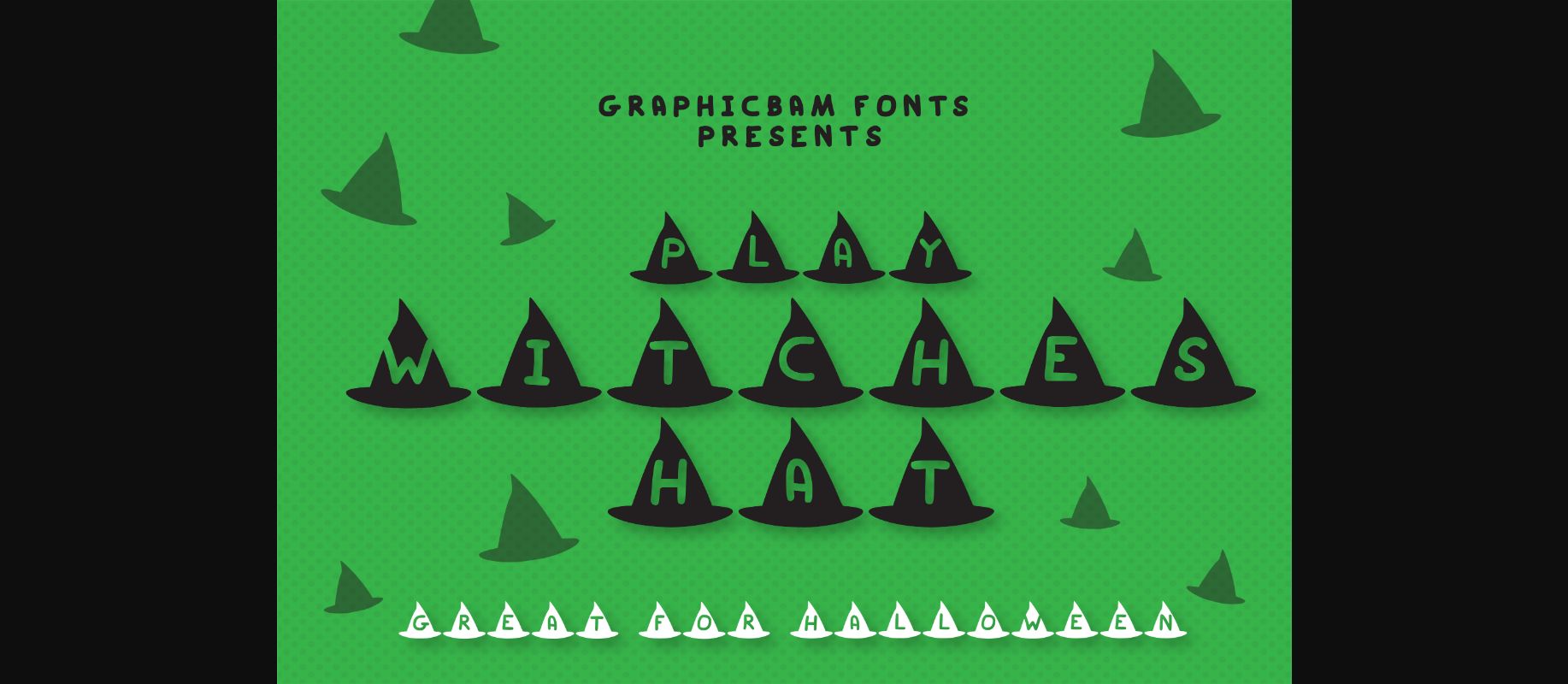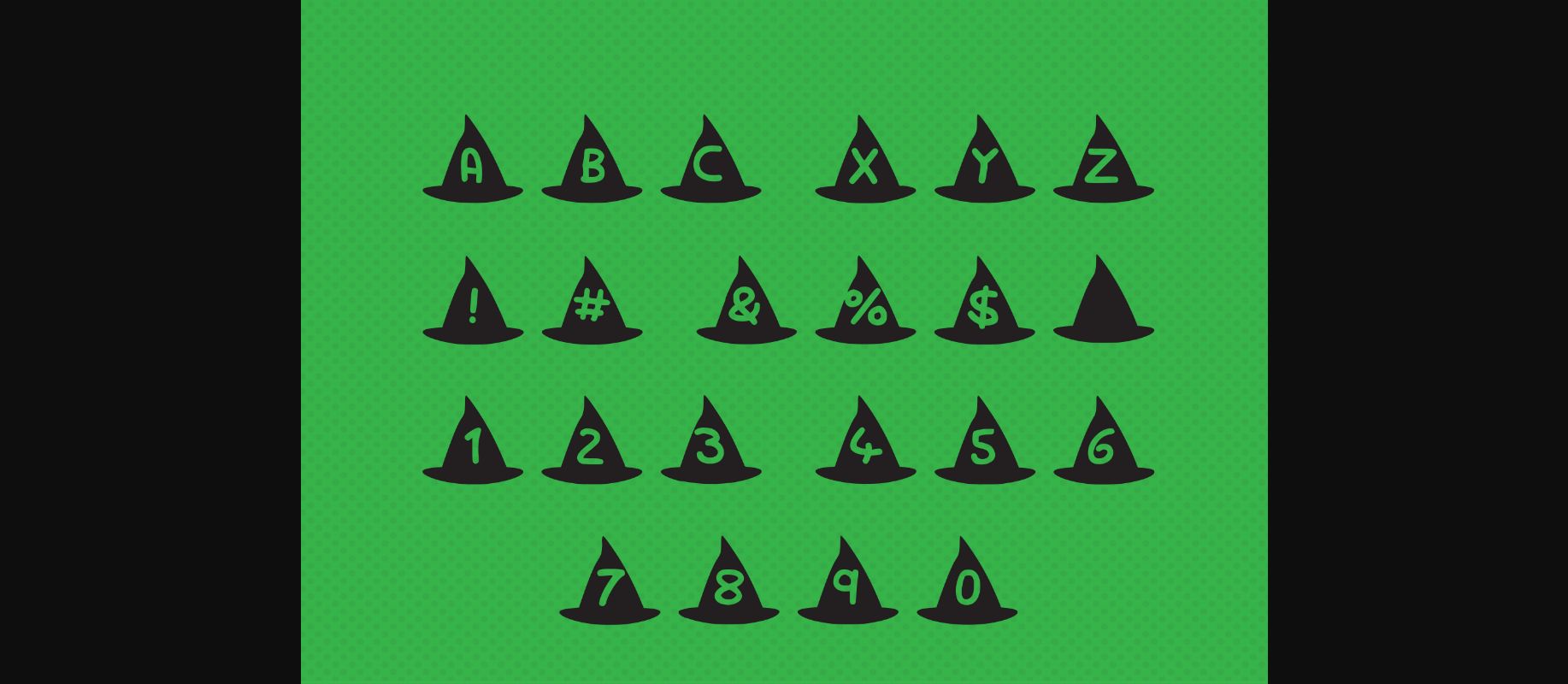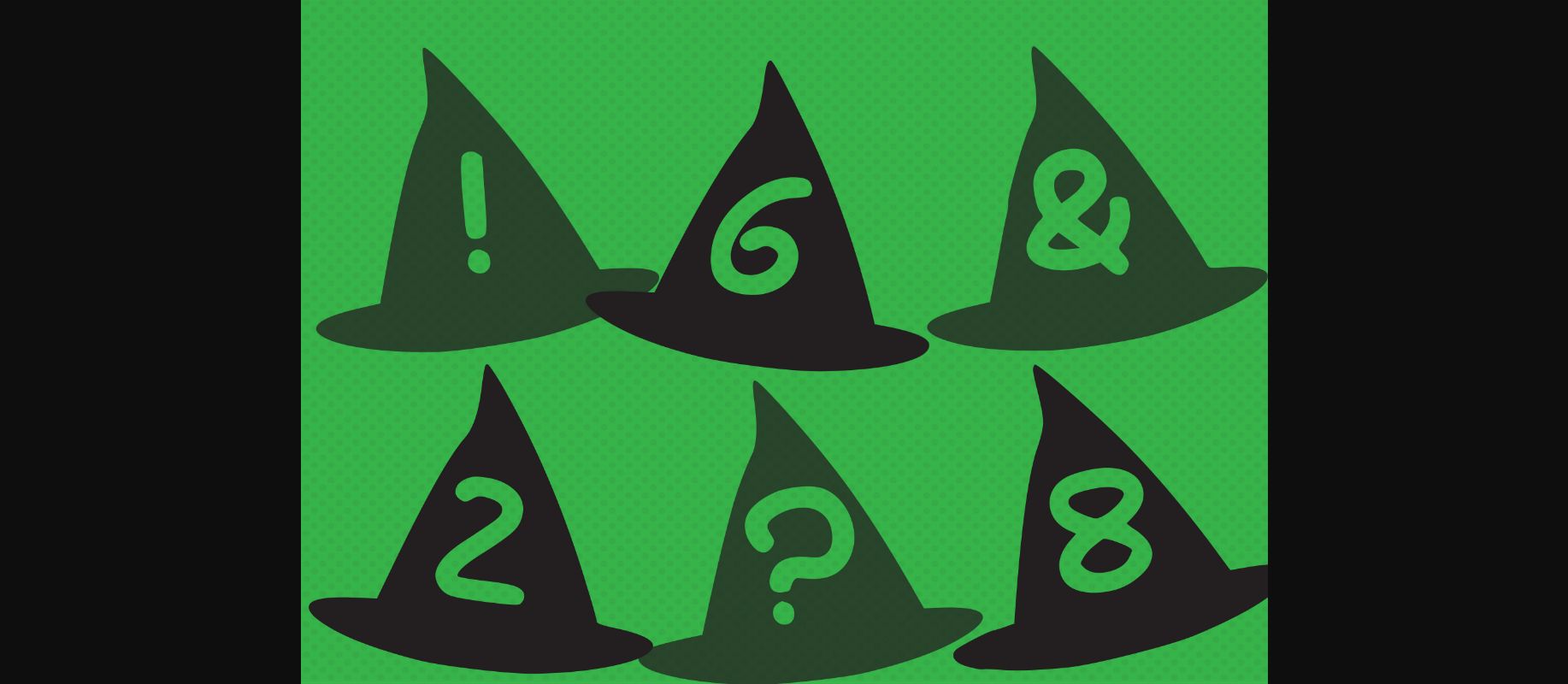
About Play Witches Hat Font
Play Witches Hat is a cool and spooky decorative font. Add it to your Halloween crafts, horror movie posters, t-shirts and anything else that requires a spectacular look.